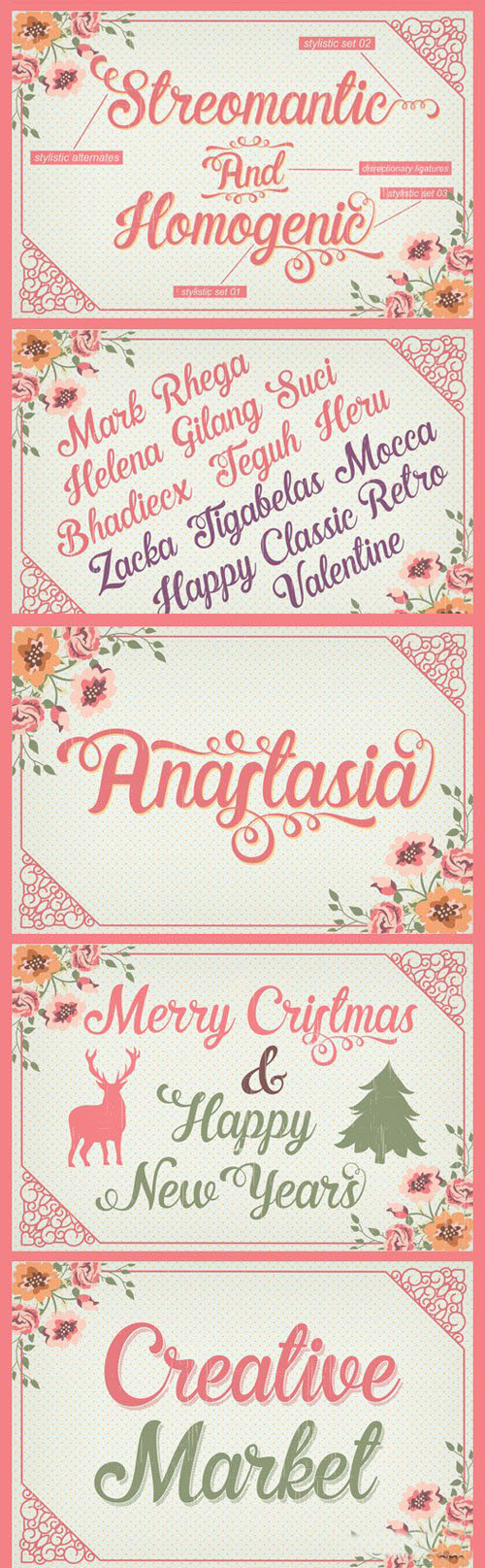
Anastasia Font
Anastasia Font Family
Anastasia font is a combine modern and vintage script font. Anastasia font is very suitable for a logo design,food brand logo, wedding card logo, clothing brand logo and much more.